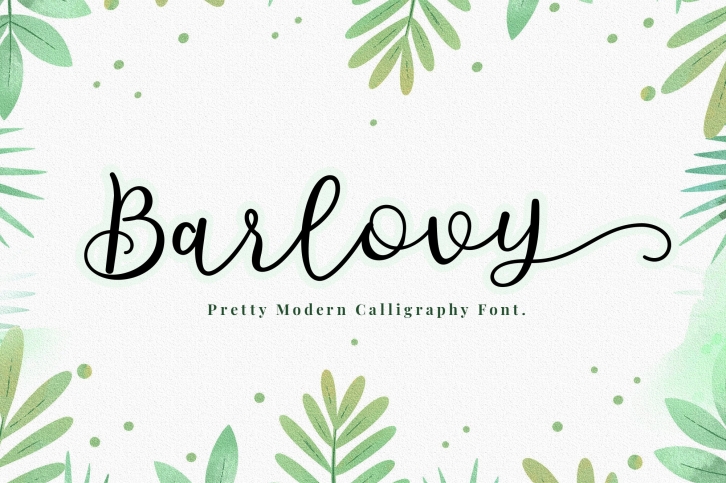
Barlovy is a gorgeous font that was realeased on July 25, 2020. The font can be used in many style contexts and design environments. Perfect for invitations, magazines, websites, logos, and more! It was designed by sizimon and the file size is 17.37 MB. Thanks for checking out this font!